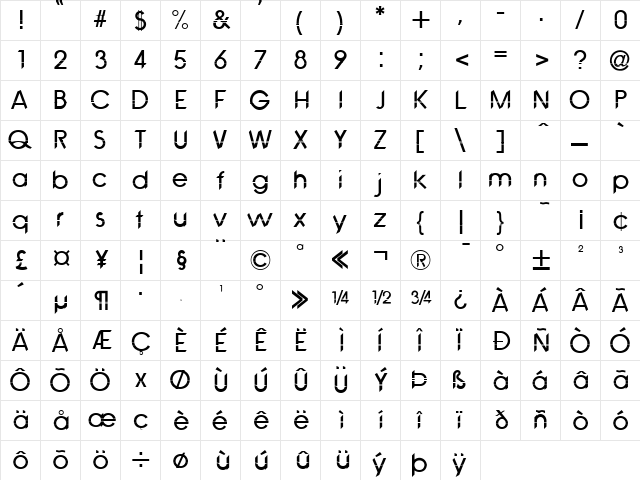
Avanti Romero Regular
| Foundry | Miguel Angel Romero Valero |
| Designer | Miguel ngel Romero Valero |
Design Context for Avanti Romero Typeface
Avanti Romero takes a measured approach to typography — its balanced proportions and neutral character make it a reliable workhorse for both digital and print work.